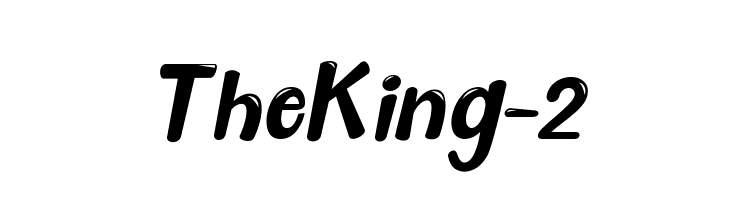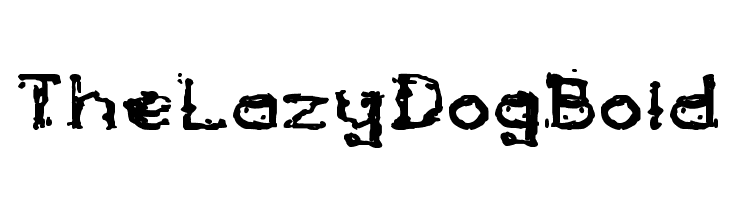
Bold, italicized font with a modern, outlined style.
A bold, italic font with a distressed, textured style for an edgy look.
A bold, distressed font with a grunge, urban style.
A monospaced, modern typeface with low contrast and uniform spacing.
A bold slab serif font with strong serifs and uniform strokes.
A bold, oblique font with consistent stroke thickness and a modern slant.
A clean, oblique font with a modern and dynamic style.
A bold, outlined font with a modern and geometric style.
A bold, italicized font with a modern and edgy style.
A bold, italicized font with a grunge texture and medium contrast, perfect for edgy designs.